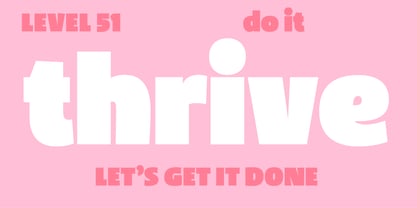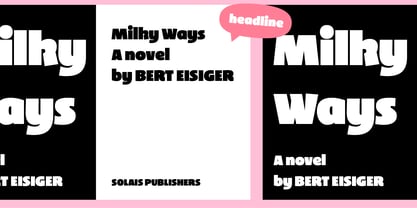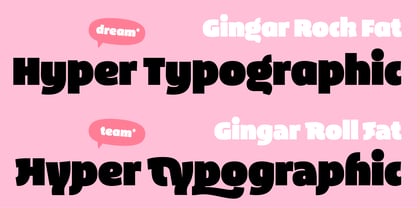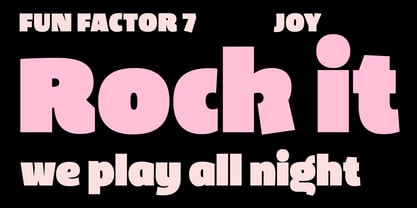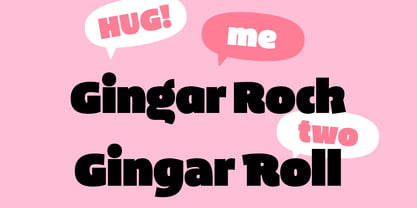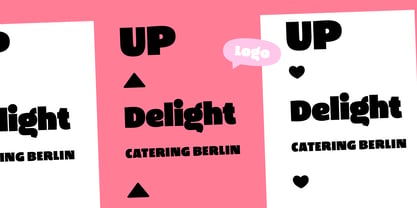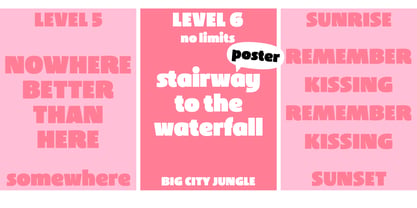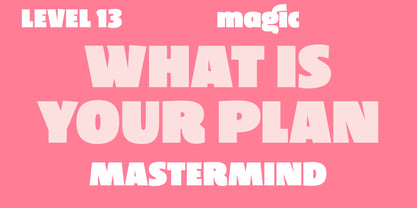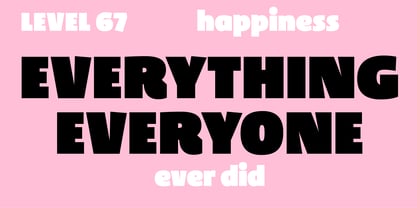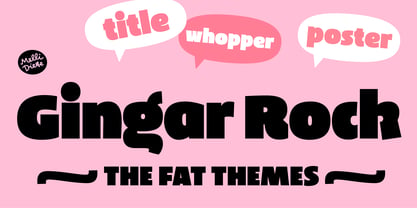
Gingar Rock
by Melli Diete
Let's rock! For mega headlines, Gingar Rock is just the right choice. This font is perfect for posters, branding, packaging and other use cases. The cute characters work best at large sizes and in combination with Gingar Roll. If you want to speak louder than usual, Gingar Rock is there. And if you’d like to add a smile to your poster... – a smiley is included, too. :)
Chi* within letters – harmonic fonts in balance for different aspects of life. As a child, Melli drew little typographic posters to be pinned in the streets. The message was simple: Think of love. Melli Diete is running a Berlin based Type Foundry with – somehow – energetic fonts. Her letters are unique, full of character and made for your creative experience – in harmony and sympathy. While drawing there is a creative mindset – somehow she likes to break free from tradition – of course with typographic knowledge and a sharp eye on the letterforms – she studied type design passionately. Somehow it is more: to influence with creativity, to letting the chi flow in front of a typographic background. Readability is a must, as well as smileys inclusive. She already won some design prices and never runs out of ideas. Lovely fonts! – made in Berlin. :) This is the personal foundry for Melli Diete.